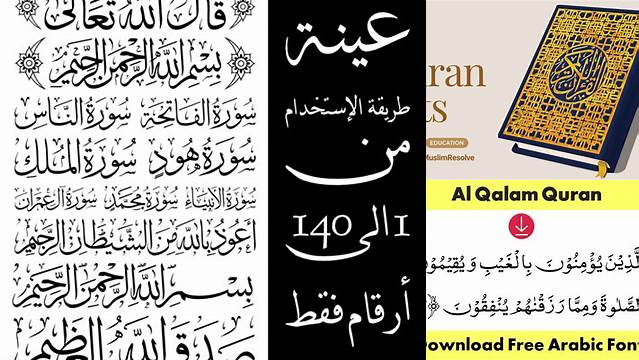
Free Arab Quran Fonts: Islamic Styles For Download
Hey guys! Ever been on the hunt for the perfect Arab Quran font? You know, one that just screams authenticity and beauty for your Islamic-themed projects? Well, you've landed in the right place! We're diving deep into the world of free Arab Quran Islamic fonts, making sure you've got the lowdown on where to find them, how to use them, and why they're so darn important. Let’s get started and explore the beautiful world of Islamic fonts!
Exploring the Beauty of Arab Quran Fonts
Understanding the Significance of Arab Quran Fonts
So, why are Arab Quran fonts such a big deal? Well, they're not just any fonts; they carry a huge cultural and religious weight. These fonts are meticulously crafted to reflect the elegance and reverence of the Quranic script. Think about it – the Quran is considered the literal word of God in Islam, so the way it's presented visually is super important. Using the right font can add a whole new layer of depth and meaning to your projects, whether you're designing a website, creating artwork, or even just making a simple invitation. These fonts help preserve the traditional aesthetics and ensure that the message is conveyed with the utmost respect and clarity. It’s about more than just looking pretty; it’s about honoring a sacred tradition. Using these fonts can truly elevate your work, giving it an authentic and respectful touch.
Consider this: each curve, each stroke, each dot in these fonts has been thoughtfully designed to reflect the beauty and spiritual significance of the Quranic text. These fonts often incorporate intricate calligraphy styles that have been developed and refined over centuries. This history and artistry is what makes them so special. When you use an Arab Quran font, you’re not just choosing a typeface; you're engaging with a rich artistic and cultural heritage. The right font can also help to make the text more legible and accessible, ensuring that readers can connect with the message on a deeper level. The aesthetic appeal is undeniably powerful, drawing viewers in and inviting them to reflect on the meaning of the words. Whether it's a simple verse or an elaborate design, the choice of font can make all the difference in how the message is received.
Key Characteristics of Islamic Calligraphy Fonts
What makes an Islamic calligraphy font stand out? It's all about the flowing lines, the intricate details, and the overall sense of harmony. These fonts often feature elegant curves, elongated strokes, and decorative elements that add a touch of sophistication. You'll see a lot of variation in thickness and weight, which gives the text a dynamic and visually appealing look. Think of the Naskh script, known for its clarity and readability, or the Thuluth script, which is more ornate and often used in architectural inscriptions. Then there's Kufic, with its bold and angular forms, perfect for creating a strong, impactful statement. Each style has its own unique flavor, but they all share a common goal: to create a visual representation of the divine word that is both beautiful and respectful. These fonts often incorporate diacritical marks and ligatures that are essential for proper pronunciation and understanding of the Arabic script. The careful balance between form and function is what truly sets these fonts apart. Whether you’re designing a logo, a poster, or a digital interface, understanding these characteristics will help you choose the perfect font for your needs.
And it's not just about the individual letters; it's about how they connect and flow together. The spacing, the kerning, the overall composition – it all plays a crucial role in the final effect. A well-designed Islamic calligraphy font will have a sense of rhythm and balance that is pleasing to the eye. The letters seem to dance across the page, creating a visual tapestry that is both captivating and meaningful. The use of negative space is also important, allowing the letters to breathe and preventing the text from feeling cluttered. Many of these fonts draw inspiration from traditional Islamic art and architecture, incorporating geometric patterns and floral motifs that add to their visual richness. By understanding these key characteristics, you can appreciate the artistry and skill that goes into creating these beautiful typefaces and use them effectively in your own projects. Whether you’re a seasoned designer or just starting out, exploring the world of Islamic calligraphy fonts is a rewarding experience.
Where to Find Free Arab Quran Islamic Fonts
Top Free Arab Quran Fonts for Your Projects
Popular Naskh Style Fonts for Clarity and Readability
The Naskh style is like the workhorse of Arab Quran fonts. It's known for its clarity, simplicity, and excellent readability, making it perfect for longer texts and body copy. If you're working on a project where the text needs to be easily understood, Naskh is your go-to. Think about using it for websites, books, or educational materials. There are plenty of free Naskh fonts out there, so you shouldn't have trouble finding one that fits your needs. Just make sure it's clean and well-designed, so it doesn't look too generic. Naskh has a timeless elegance that makes it suitable for a wide range of applications, from traditional to modern designs. The balanced letterforms and consistent strokes contribute to its legibility, making it a favorite among typographers and designers.
When choosing a Naskh font, pay attention to the details. Look for fonts that have a good balance between thick and thin strokes, and that have well-defined diacritical marks. The spacing between letters and words should also be consistent, ensuring that the text flows smoothly. Some Naskh fonts have a more calligraphic feel, while others are more geometric and modern. Consider the overall tone and style of your project when making your selection. A more traditional Naskh font might be perfect for a religious text, while a modern variation could be better suited for a contemporary design. Remember, the goal is to create a visually appealing and easily readable text, so choose a font that aligns with your objectives. Experiment with different sizes and weights to see how the font performs in various contexts. A well-chosen Naskh font can elevate your project and enhance its overall impact.
Elegant Thuluth Fonts for Decorative Purposes
Thuluth is where things get fancy! This style is all about elegance and ornamentation. It's often used in titles, headings, and decorative elements where you want to make a statement. Thuluth fonts are more complex and flowing than Naskh, with dramatic curves and elaborate embellishments. Think of it as the showstopper of Arab Quran fonts. Because of its intricate nature, Thuluth is best used sparingly, to avoid overwhelming the viewer. But when used correctly, it can add a touch of luxury and sophistication to your designs. You'll often see Thuluth used in architectural inscriptions, religious certificates, and high-end branding materials. It’s a font that commands attention and exudes a sense of prestige.